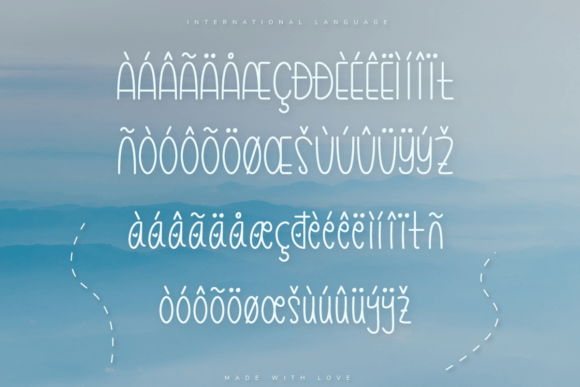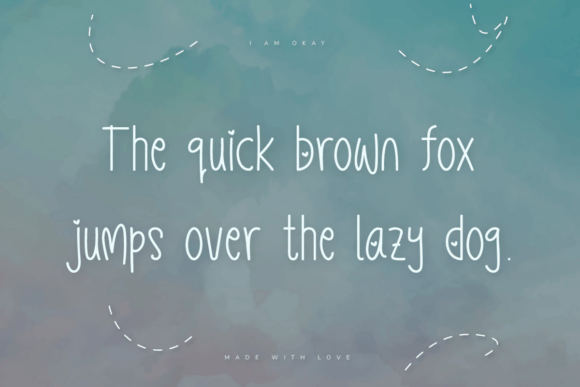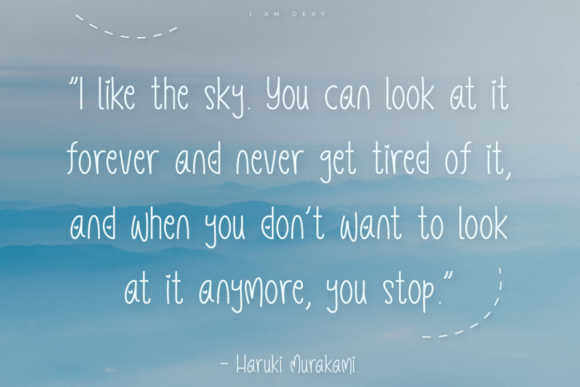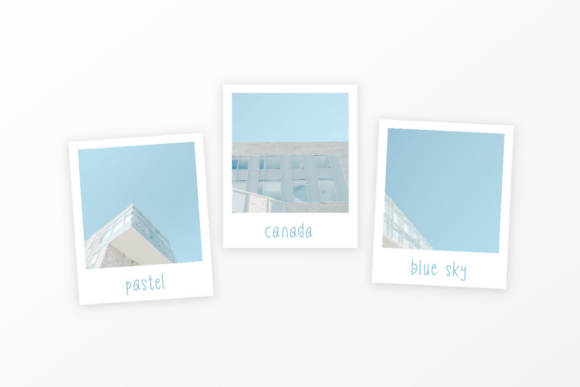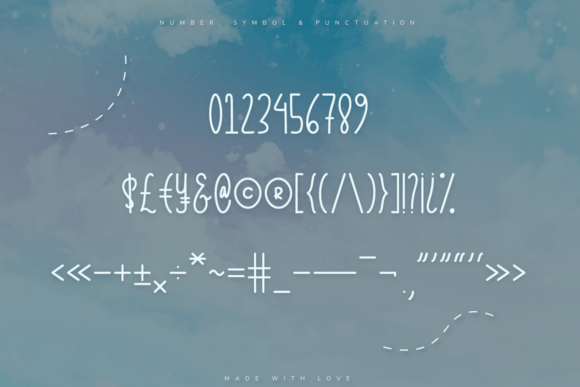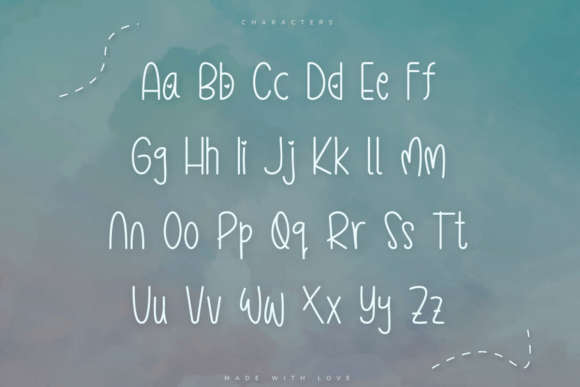
Introduction to I Am Okay Font
I am Okay – Handwritten Cute Font “It’s okay, everything is gonna be okay” are you familiar with this sentence.
Just like this sentence, this font gives positive vibes and can bring a happy atmosphere to your design I am Okay is perfect for your notebook, scrapbook, and lettering, and also suitable for any design, especially cute designs.